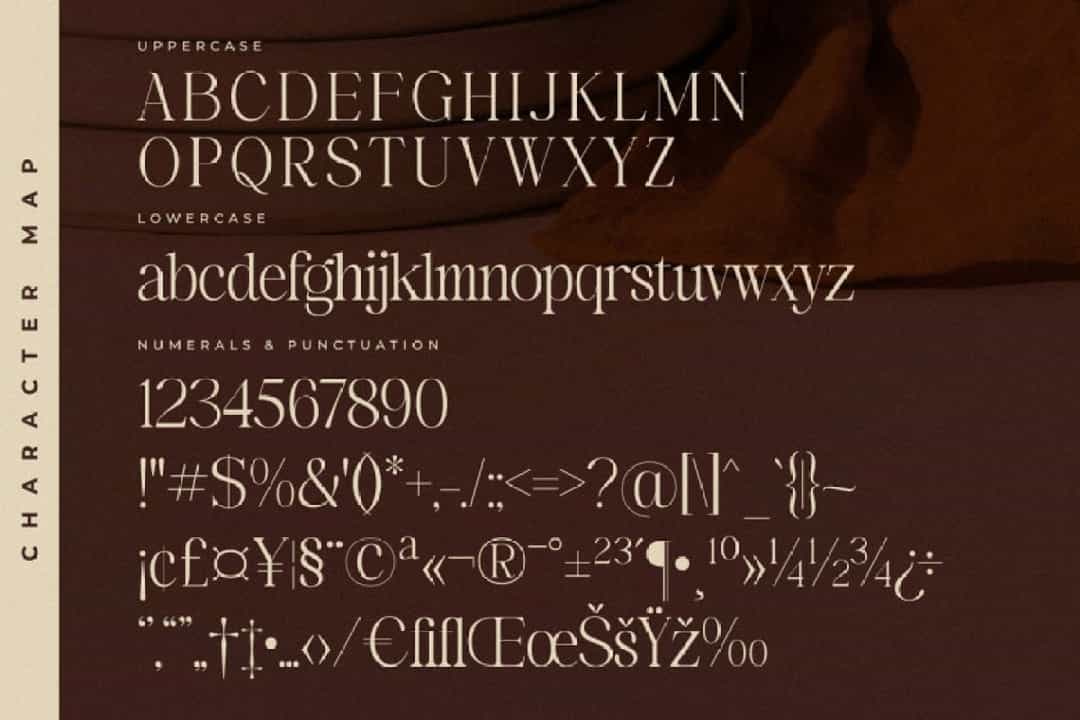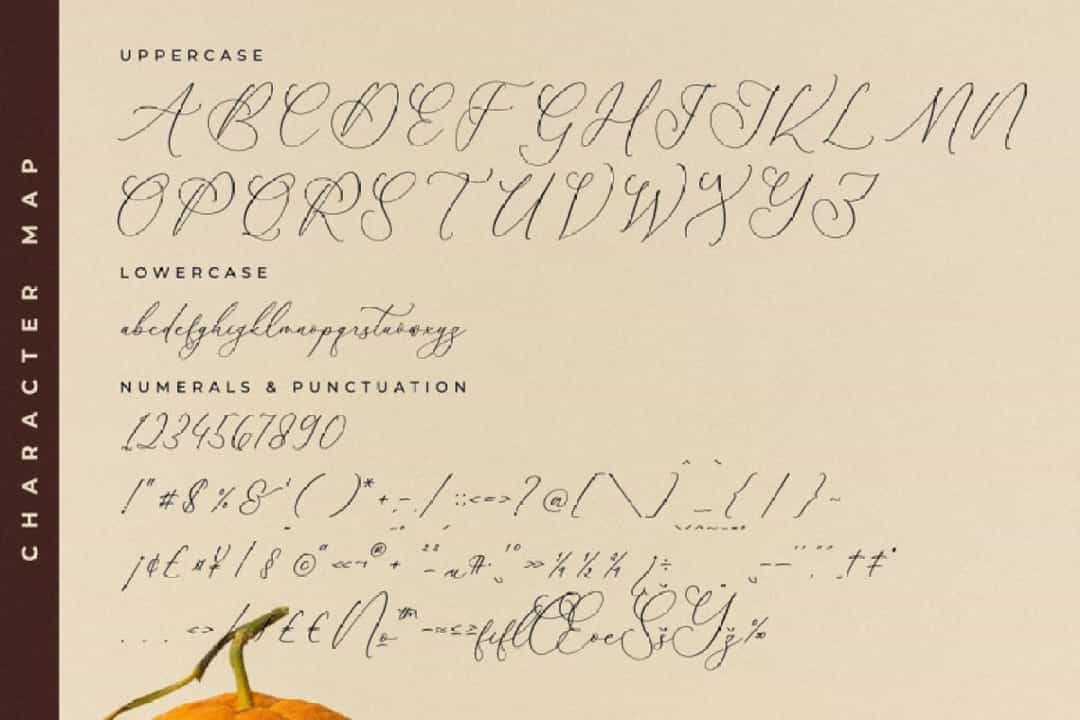
Pemberton Marsdenis an inverse script and serif font with an eye-catching style and contemporary appearance, perfect for creating classy and elegant logos, movie or book title designs, fashion brand clothing designs, magazine letters, quotes and much more.